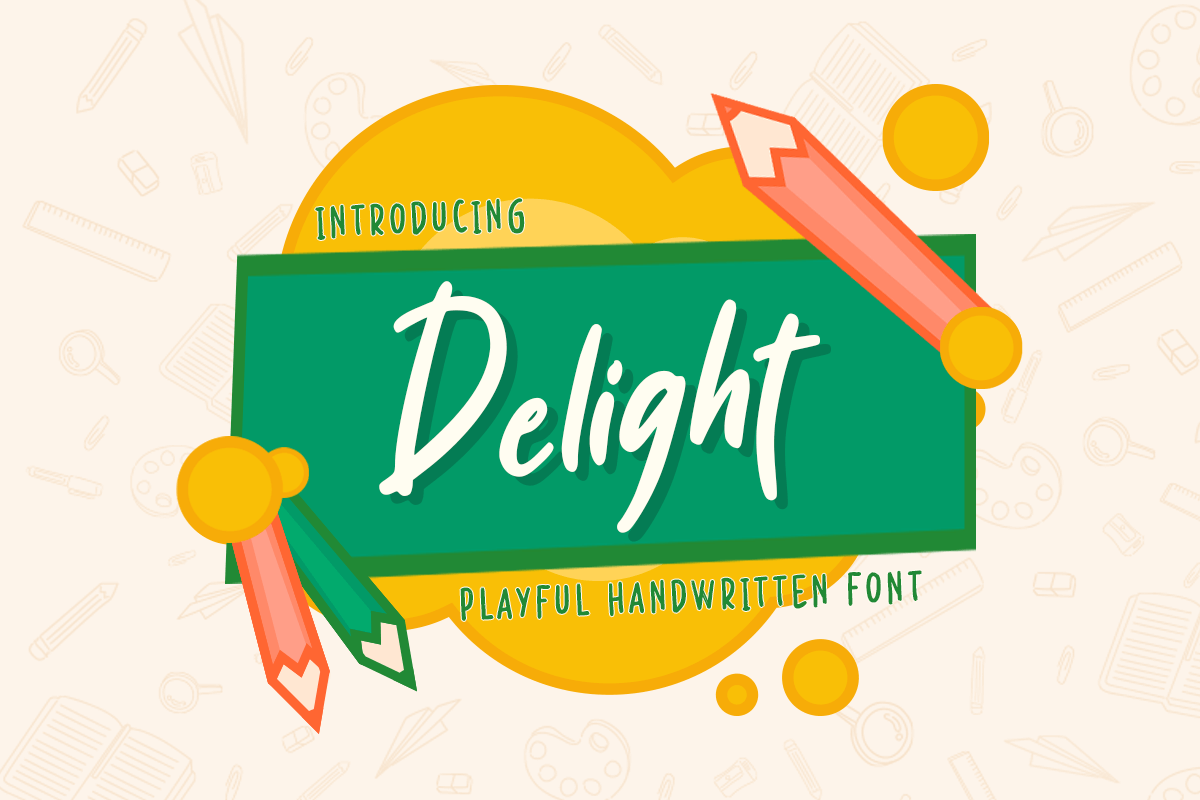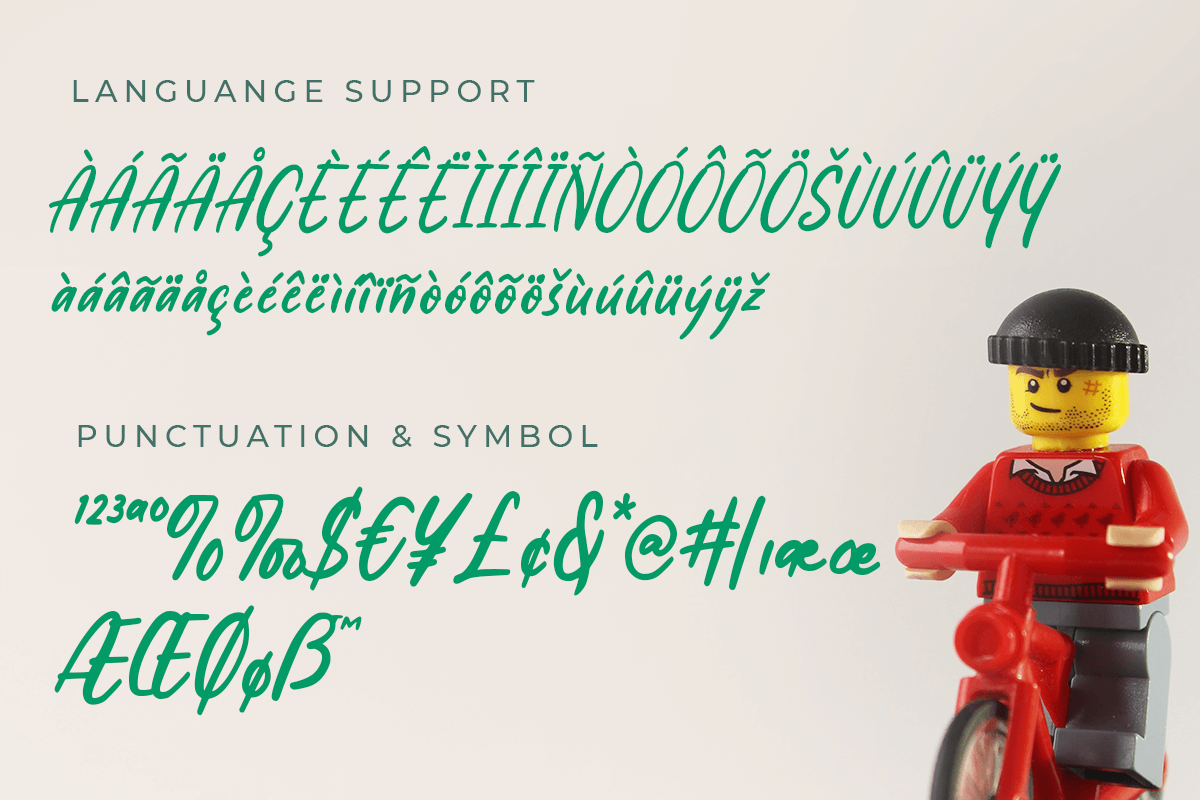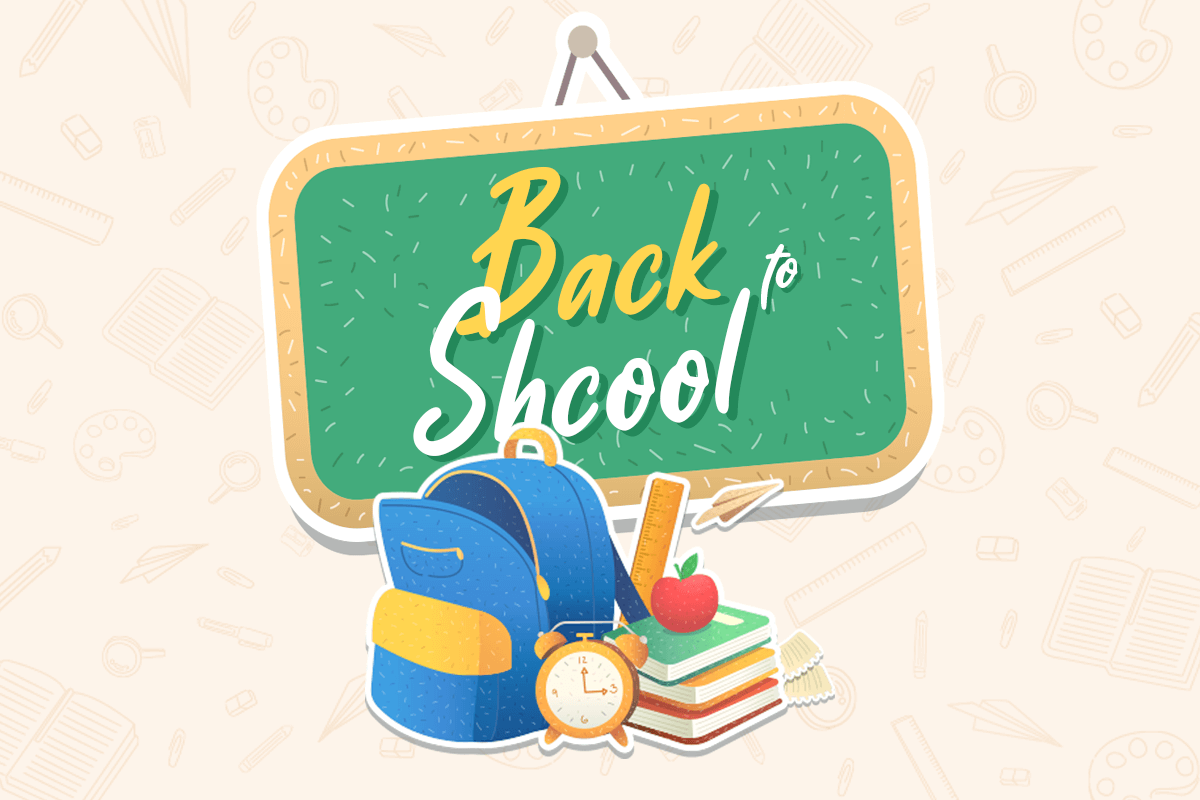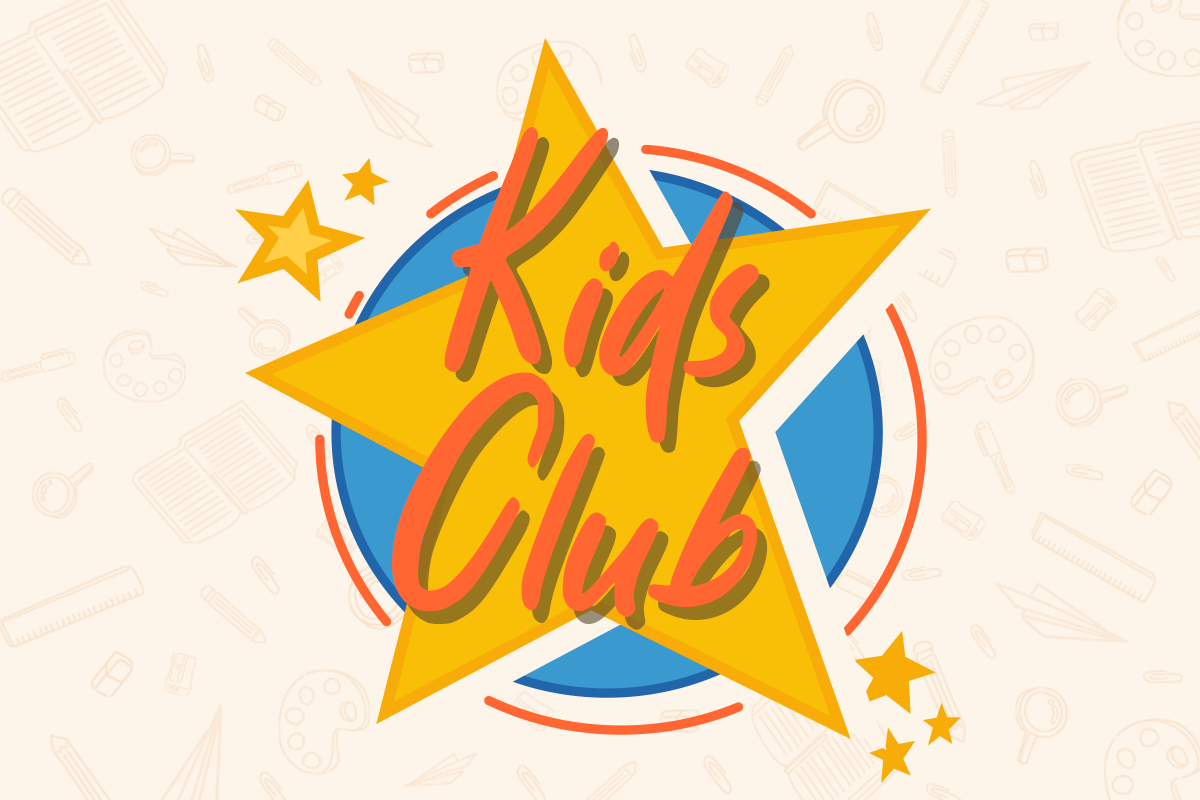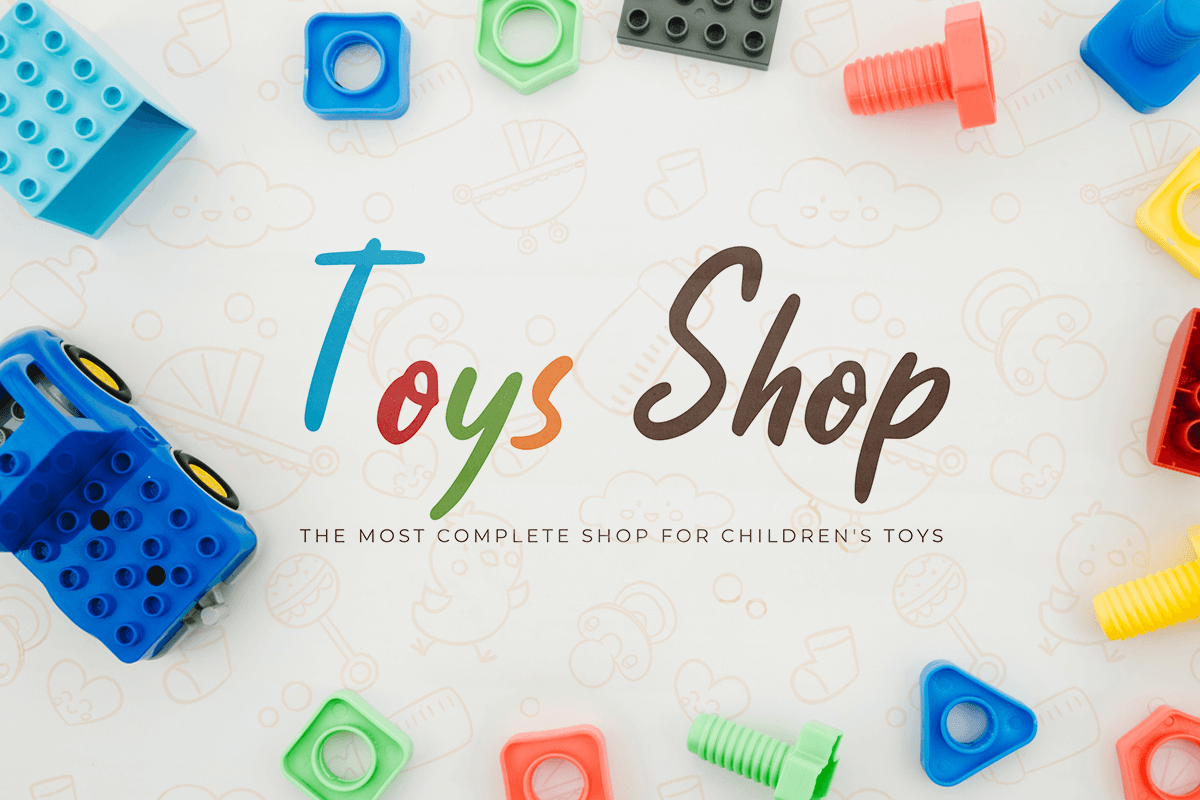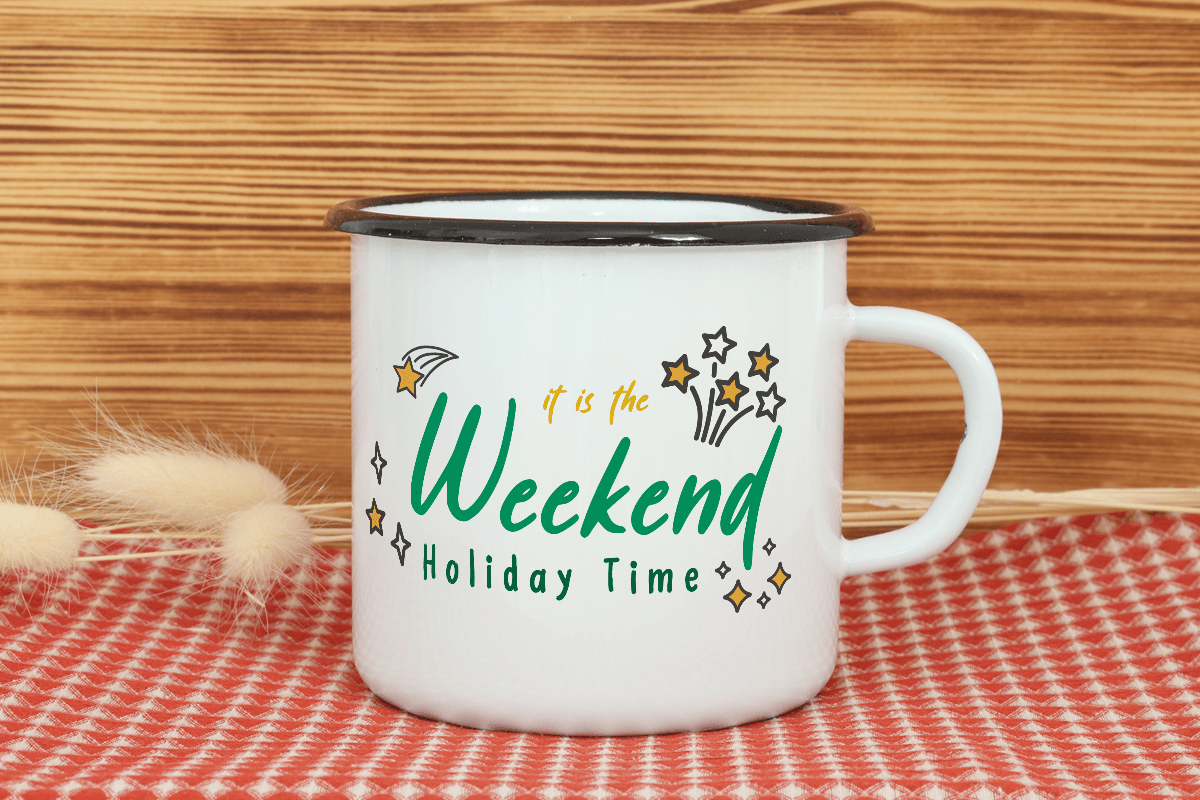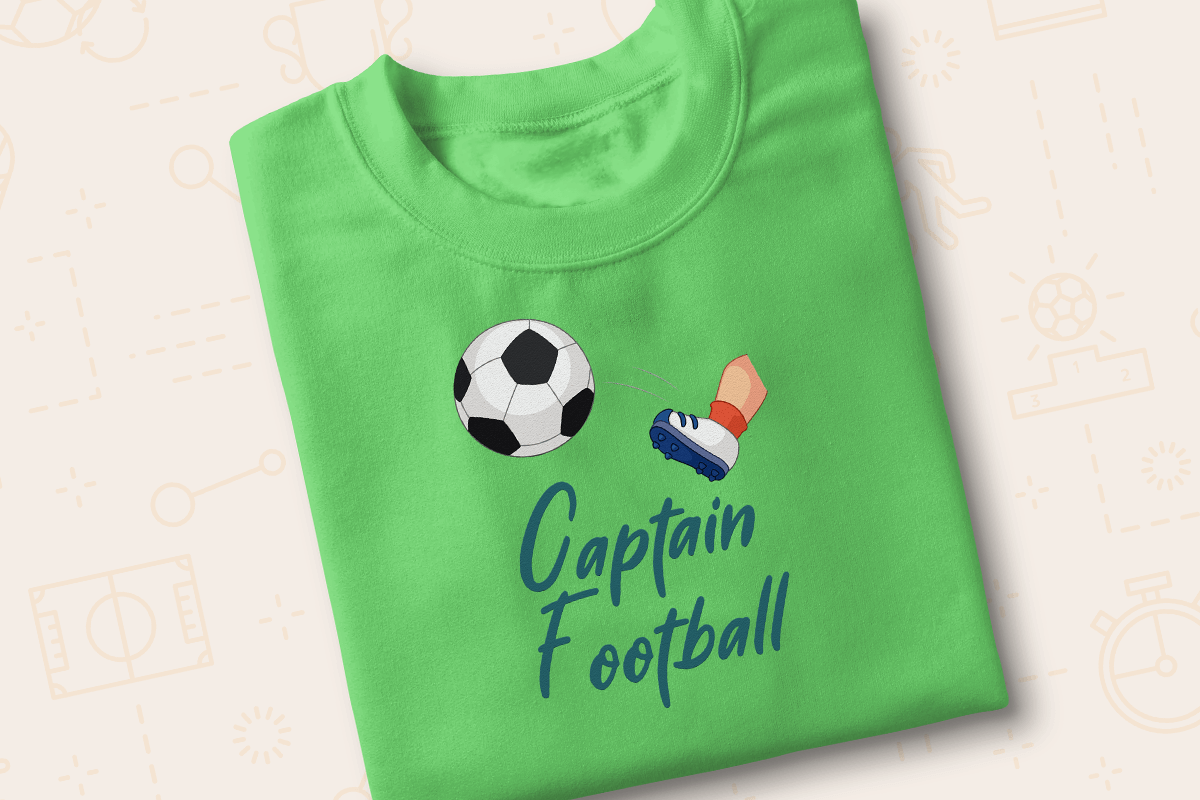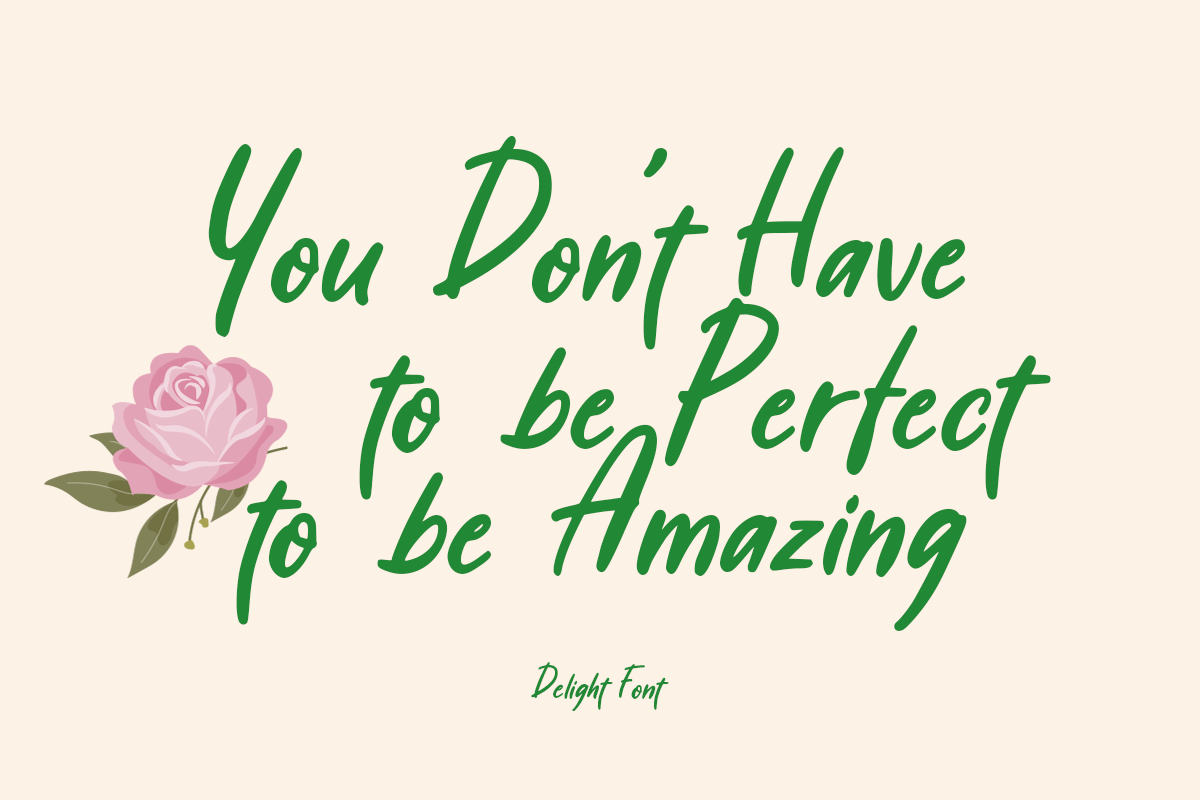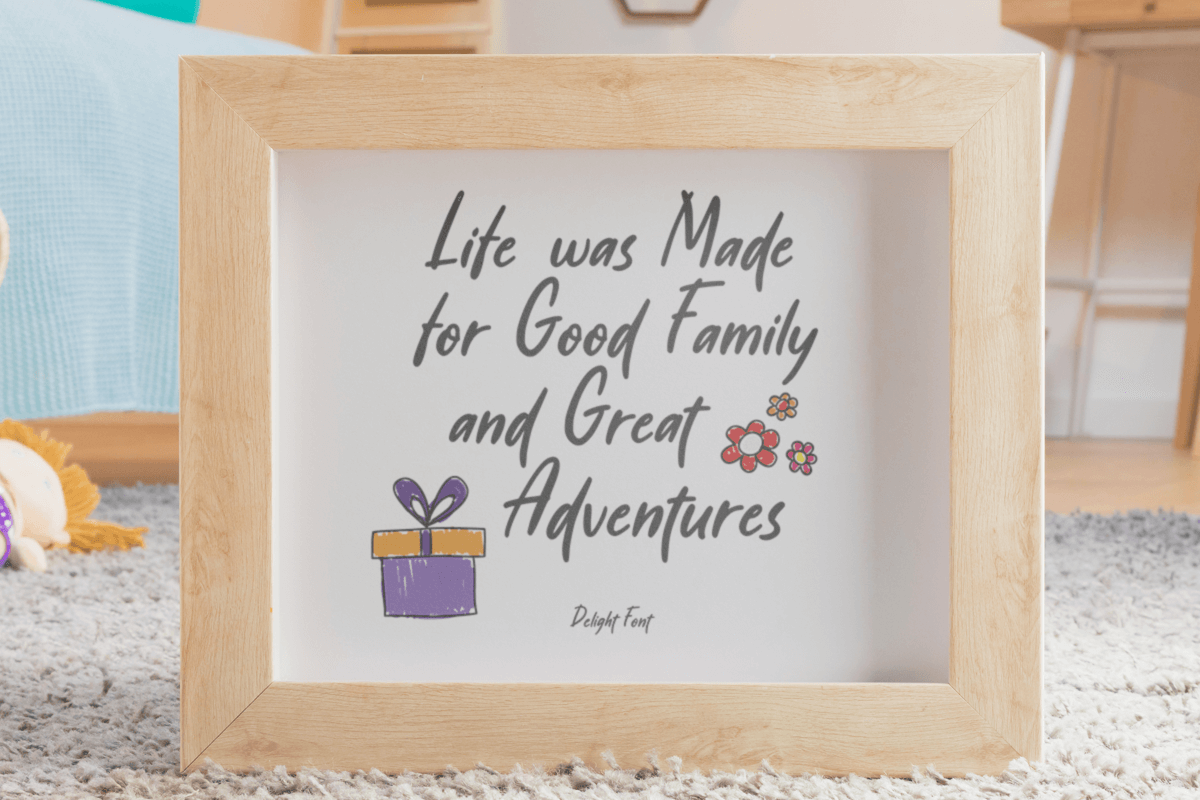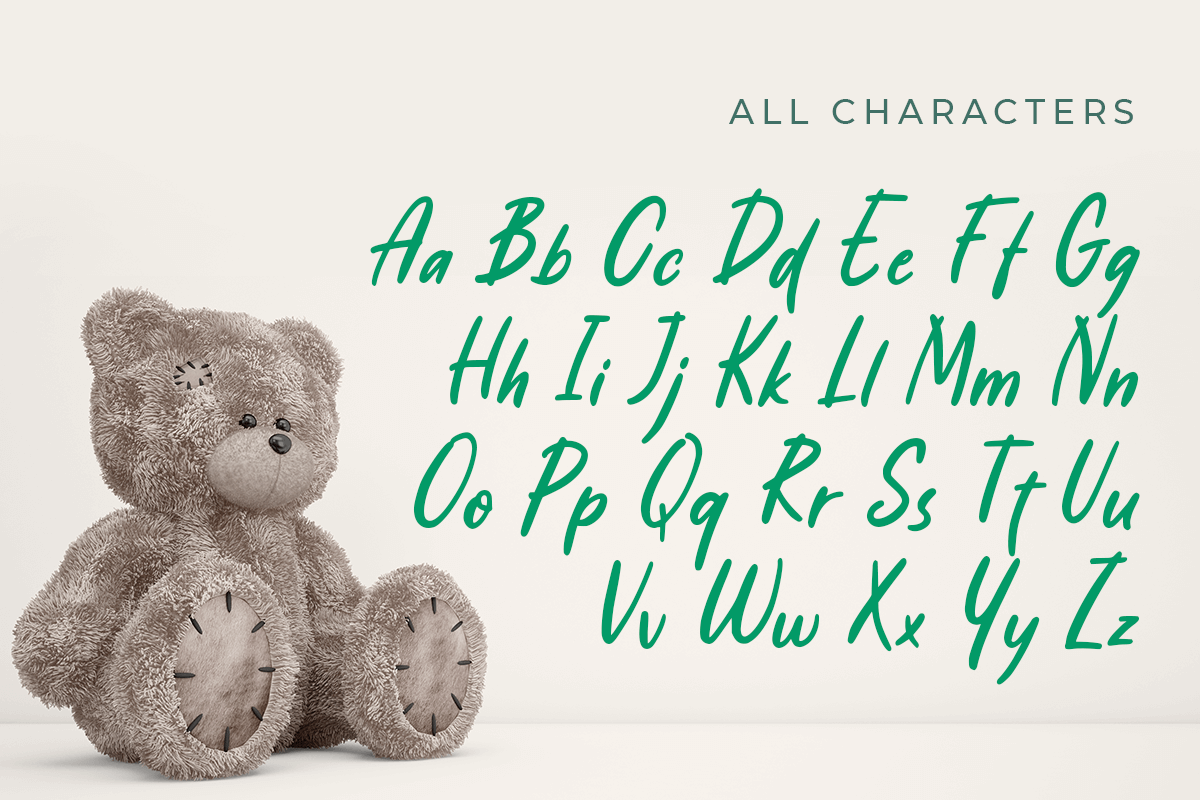
Delight
Do you need a font that’s perfect for Fun projects? Delight is the Right Choice
Delight is a Fun and Playful Handwritten Font that’s perfect for Headline, Quotes, Poster, etc for Display need. This font specially crafted for your design projects such as banner, poster, flyer, website design, product packaging, merchandise, pillow print and so many more with easy to use but standing out results are so playful.
Enjoy to Design any your needs with stand out, unique, and fun feels.